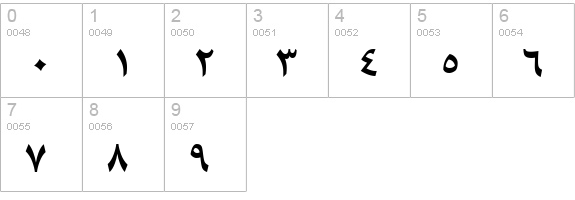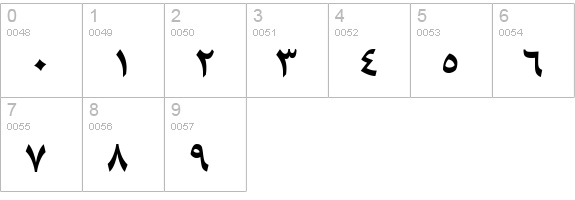
B Mitra Bold Font Details
B Mitra Bold is a strong, high-contrast variant in the B typeface family \xE2\x80\x94 well suited to headlines, attention-grabbing titles, and strong calls-to-action.
B Mitra Bold font is a striking and powerful typeface that commands attention with its bold and confident presence. Designed with precision and flair, this font is perfect for making a statement in headlines, titles, and branding designs. Its strong and sturdy letterforms exude a sense of reliability and strength, making it an excellent choice for projects that require a touch of boldness. The B Mitra Bold font is not only visually impactful but also versatile, as it can be used across a wide range of design applications. Whether you're creating a poster, logo, or website, this font will help your message stand out and leave a lasting impression on your audience. Best of all, B Mitra Bold font is completely free to download at FontsMarket.com. This means you can enhance your designs with this premium-quality font without any cost involved. Don't miss out on the opportunity to add this bold and dynamic typeface to your font collection today!